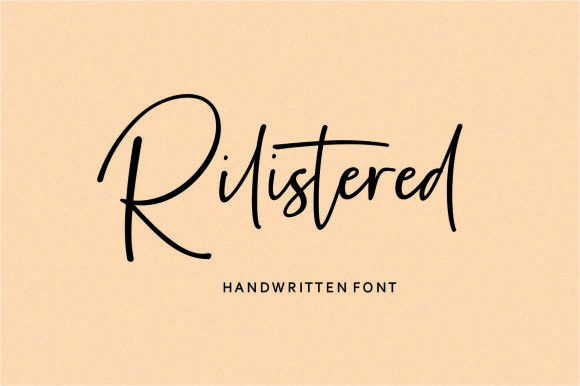
Introducing Rilistered, the enchanting script font family that will captivate your senses and ignite your creativity. Designed by the talented Fikryal Studio, Rilistered is not just a collection of letters; it's an artistic expression, a dance of ink on paper that will transform your designs into masterpieces.
With its authentic twist, Rilistered exudes a contemporary charm that will elevate your projects to new heights. Its carefully crafted curves and strokes flow effortlessly, evoking a sense of elegance and sophistication. Whether you're designing logos, branding materials, social media graphics, or wedding invitations, Rilistered will add a touch of magic that will leave a lasting impression.
Immerse yourself in the beauty of Rilistered's diverse styles. From the playful and whimsical Regular style to the bold and assertive Black style, each variation offers a unique personality that will resonate with your audience. Experiment with the different weights and styles to create harmonious visual compositions that reflect your brand's essence.
Rilistered's versatility knows no bounds. Whether you're working on a modern website, a vintage-inspired poster, or a charming children's book, Rilistered will seamlessly adapt to your vision. Its graceful lines and elegant swashes will add a touch of sophistication to any project, leaving your audience spellbound.
Unleash your creativity and let Rilistered take center stage. Its intuitive design and user-friendly features make it a joy to use. With just a few clicks, you can transform your ideas into stunning visuals that will captivate your audience and leave them yearning for more.
Don't settle for ordinary fonts. Choose Rilistered and unlock a world of endless possibilities. Let your imagination soar as you create designs that are both visually stunning and emotionally resonant. Rilistered is more than just a font; it's an experience that will transform your creative journey.